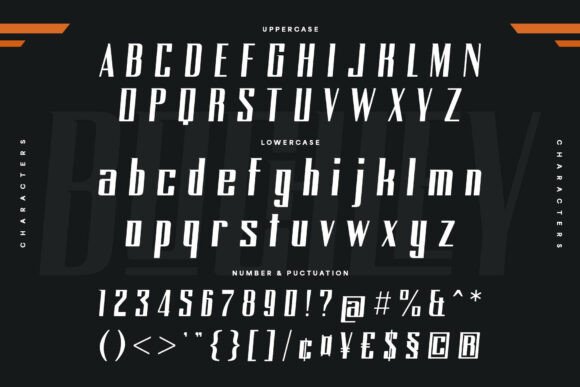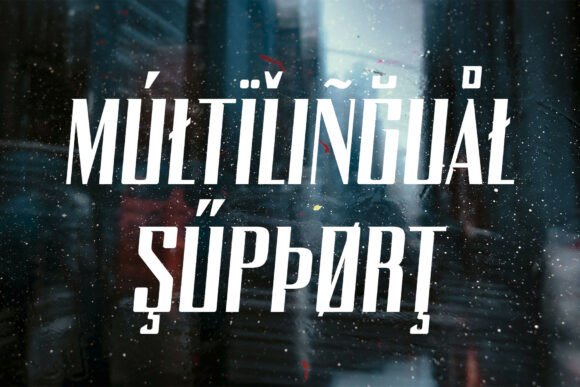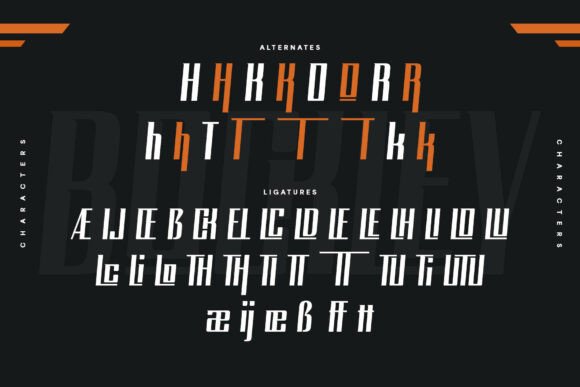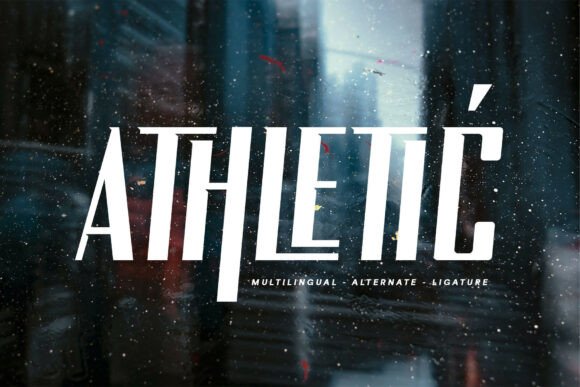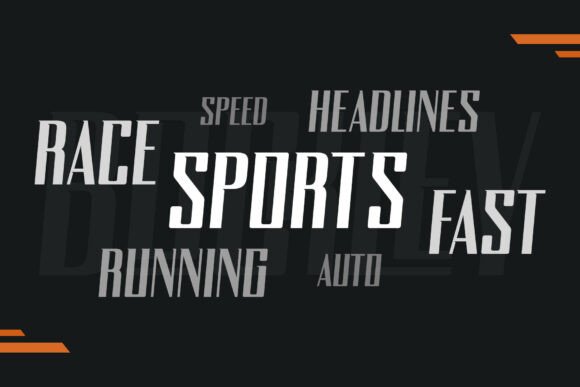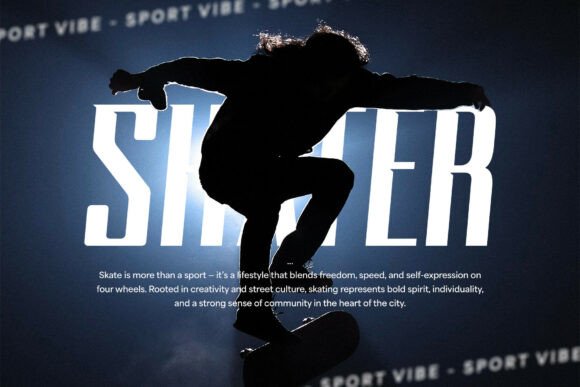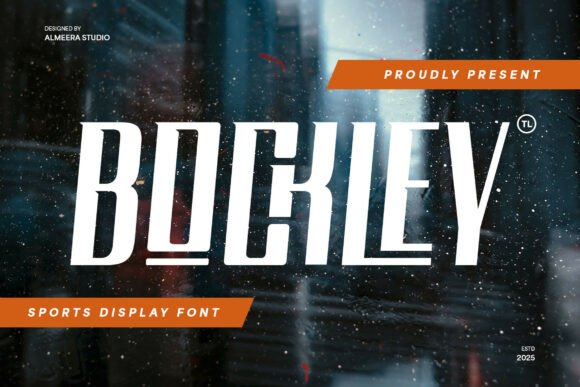
Unleash the Energy of Bockley: A Dynamic Sports Display Font
In the world of design, typography plays a crucial role in conveying the message and tone of a project. For designers and crafters looking to inject power and intensity into their work, a font that exudes energy and dynamism is essential. Introducing Bockley, a bold and angular sports display font designed to bring a competitive edge to your typography. In this article, we’ll explore the features and benefits of Bockley, and why it’s the perfect choice for athletic branding, team logos, sports, event posters, and gaming headlines.
The Power of Bockley
Bockley is a modern, impactful typeface that embodies the spirit of competition and athleticism. Its strong, angular forms are carefully crafted to convey speed, determination, and undeniable force. The font’s bold presence ensures maximum impact and excellent readability, making it ideal for high-visibility applications. Whether you’re designing a captivating sports advertisement or an exciting e-sports title, Bockley brings a level of energy and dynamism that’s hard to match.
Key Features of Bockley
• Strong, Angular Forms: Bockley’s bold and angular design makes it perfect for conveying speed, power, and intensity.
• Excellent Readability: The font’s clear and legible design ensures that your message is conveyed clearly, even at large sizes.
• High-Visibility Applications: Bockley is designed for high-impact applications, making it perfect for athletic branding, team logos, sports, event posters, and gaming headlines.
• Competitive Edge: Bockley’s dynamic and energetic design gives your typography a competitive edge that’s hard to match.
Perfect for Athletic Branding and Sports Design
Bockley is specifically designed for athletic branding, team logos, sports, event posters, and gaming headlines. Its bold and dynamic design makes it perfect for creating attention-grabbing typography that demands attention. Whether you’re designing a logo for a sports team, creating a poster for a marathon, or crafting a headline for an e-sports tournament, Bockley has the power and intensity to make your design stand out.
Why Choose Bockley?
With so many fonts available, why choose Bockley? Here are just a few reasons why Bockley stands out from the crowd:
• Unique Design: Bockley’s bold and angular design is unlike any other font on the market.
• High-Impact Applications: Bockley is designed for high-impact applications, making it perfect for designers who need to create attention-grabbing typography.
• Excellent Readability: Bockley’s clear and legible design ensures that your message is conveyed clearly, even at large sizes.
• Competitive Edge: Bockley’s dynamic and energetic design gives your typography a competitive edge that’s hard to match.
Tips for Using Bockley
To get the most out of Bockley, here are a few tips to keep in mind:
• Use it Boldly: Bockley is designed to make a statement, so don’t be afraid to use it boldly and prominently in your design.
• Experiment with Colors: Bockley looks great in a variety of colors, so experiment with different color schemes to find the one that works best for your design.
• Pair it with Other Fonts: Bockley can be paired with other fonts to create a unique and dynamic typography scheme.
In conclusion, Bockley is a dynamic sports display font that’s perfect for designers and crafters looking to inject power and intensity into their work. With its strong, angular forms, excellent readability, and competitive edge, Bockley is the perfect choice for athletic branding, team logos, sports, event posters, and gaming headlines. Whether you’re a professional designer or a DIY crafter, Bockley is a must-have font that will take your typography to the next level.